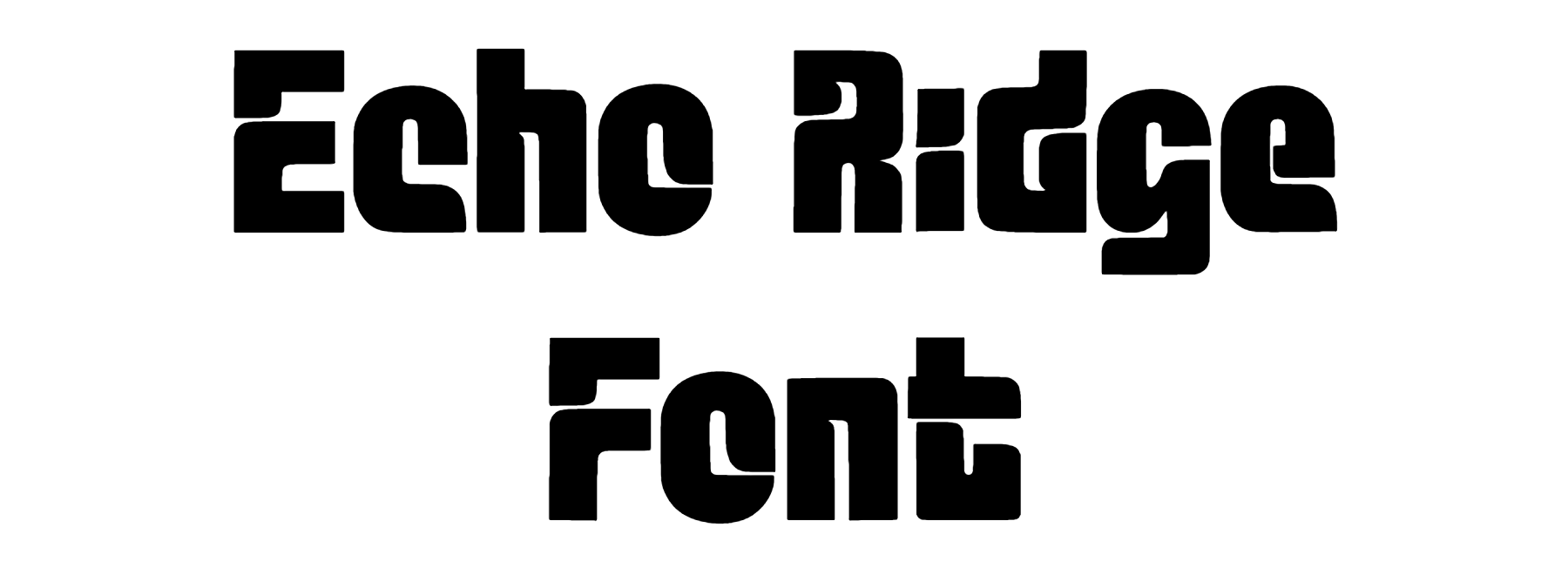
Echo Ridge
Echo Ridge is a fancy font created by Alpaprana Studio (2024). It's a decorative display font with plenty of personality, made to grab attention. It's a free download, and you can try it with your own text in the preview above first.
What You Can Type With Echo Ridge
You get every letter from A to Z in both cases and all the numbers from 0 to 9, which means Echo Ridge can handle full sentences, dates and prices. Common punctuation such as &, !, ? and @ is included as well. It also has the accented letters you need for Spanish, French, German, Portuguese and Italian.
Where Echo Ridge Works Best
Think of Echo Ridge for posters, logos and eye-catching headlines. Its lowercase letters are tall compared to the capitals, which keeps it readable at smaller sizes. Use it for one standout word or headline and let simpler fonts handle the rest.
Echo Ridge Font FAQs
Who designed Echo Ridge font?
Does Echo Ridge support accented letters?
Yes. Echo Ridge includes the accented letters needed for Spanish, French, German, Portuguese and Italian, so it works for more than just English.